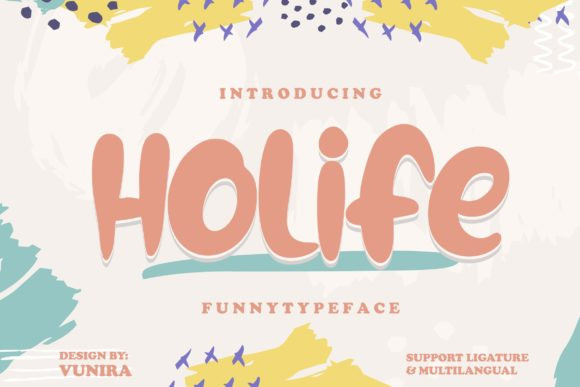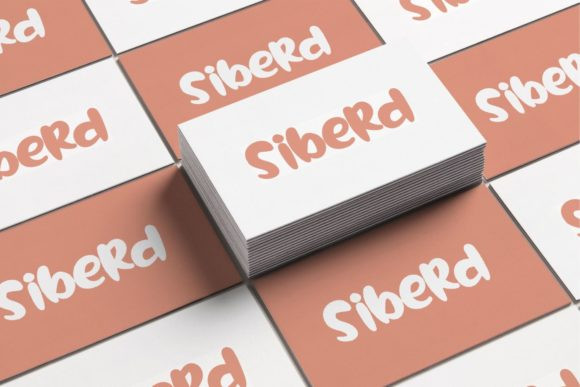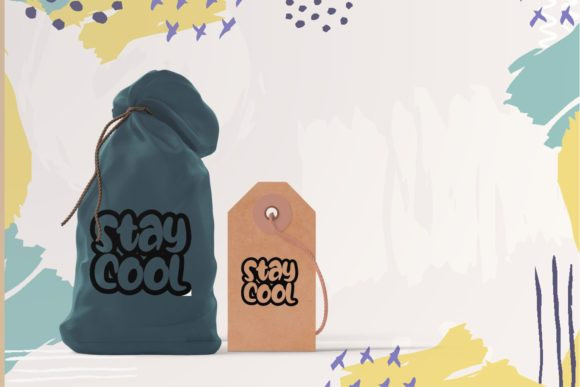
Holife Font
Holife is a fun decorative font, carefully handcrafted to become a true favorite. Its casual charm makes it appear wonderfully down-to-earth, readable and, ultimately, incredibly versatile. This font will look outstanding in any context, whether it’s being used on busy backgrounds or as a standalone headline!